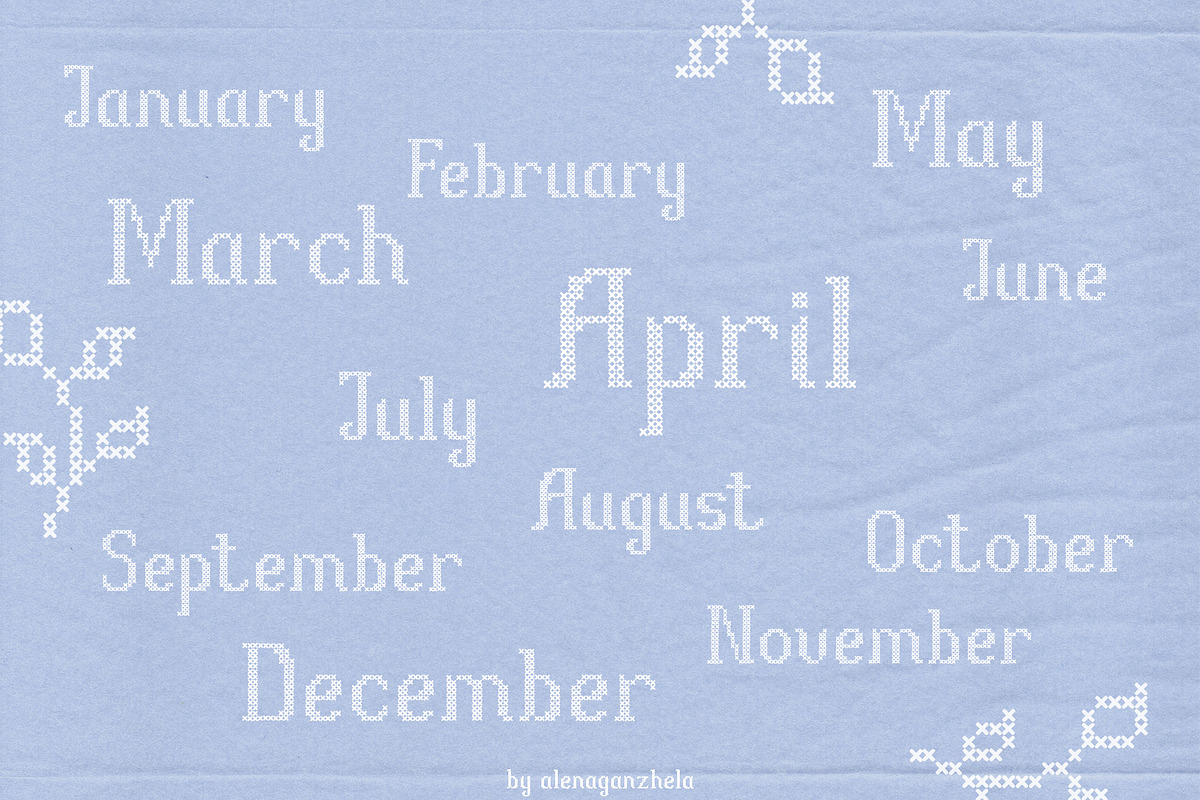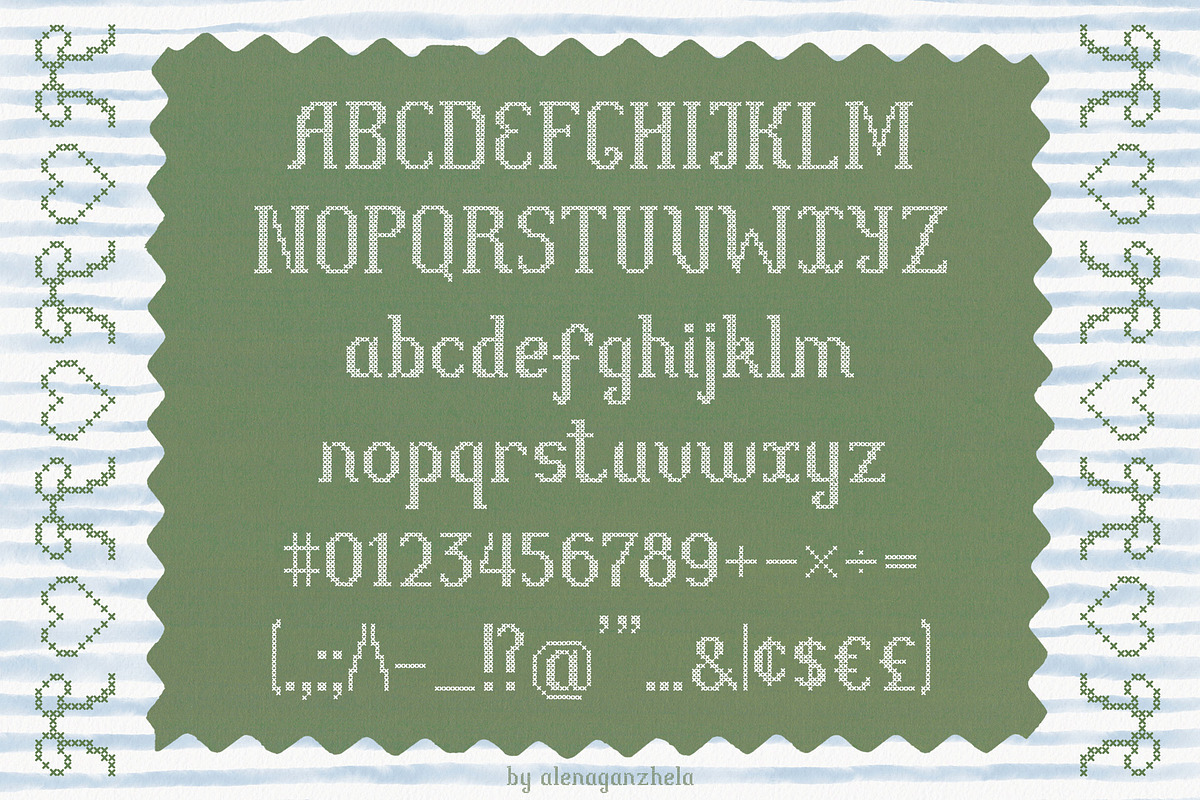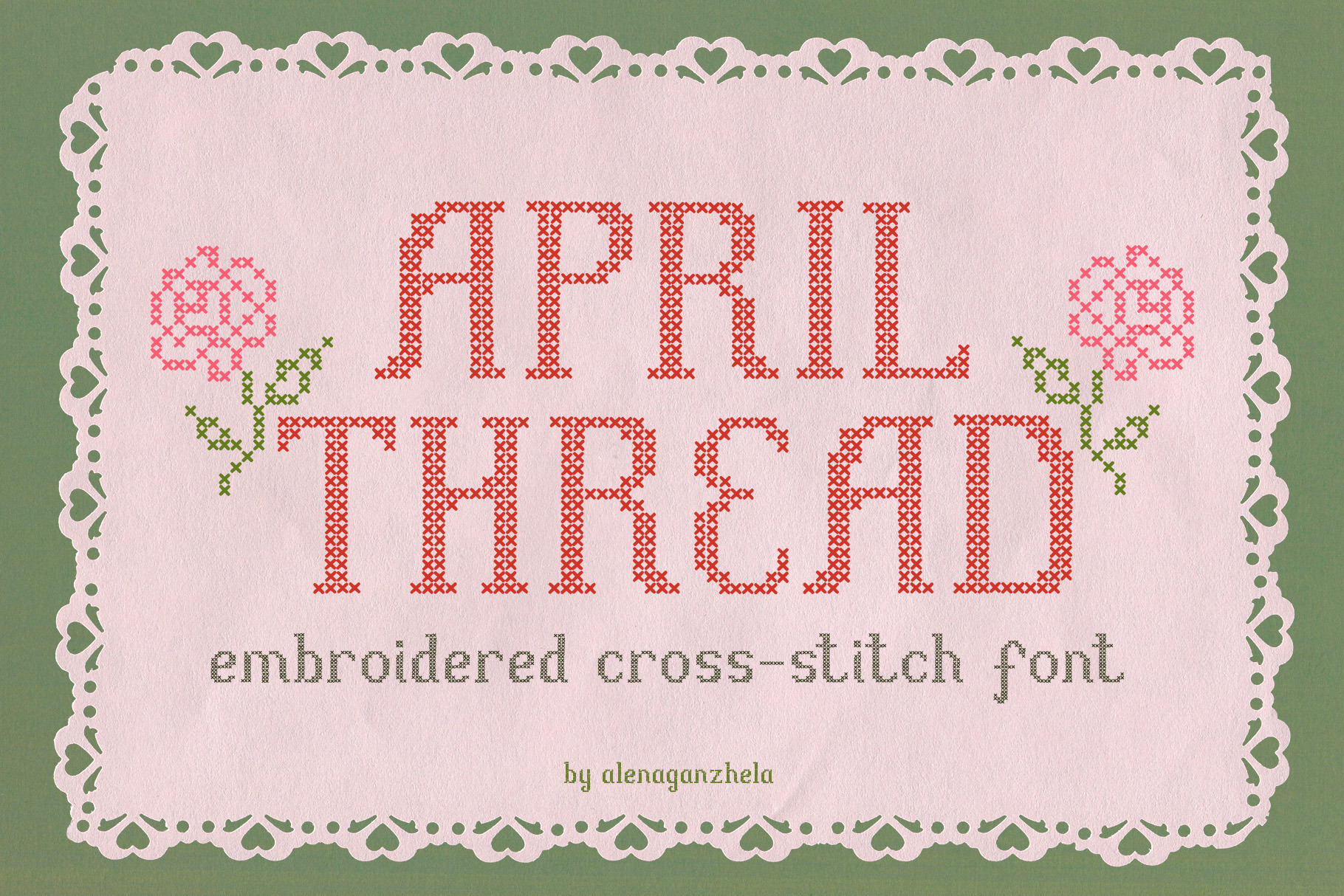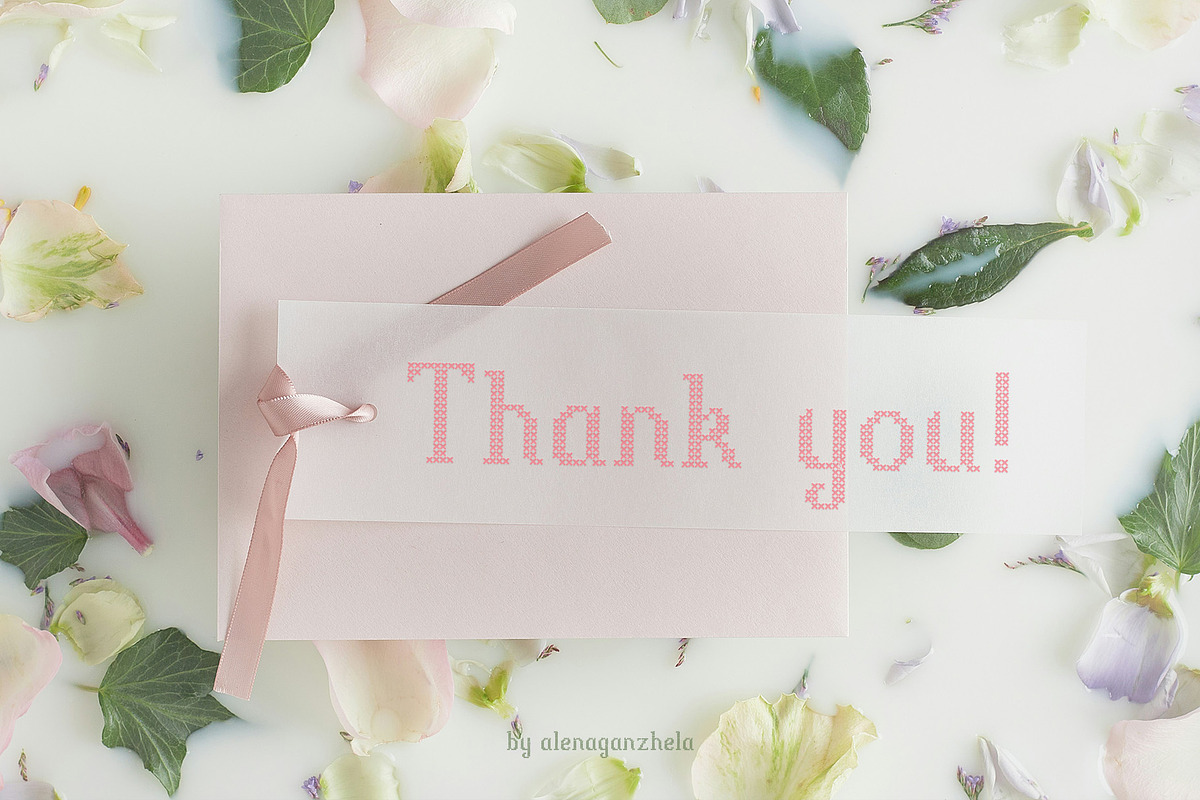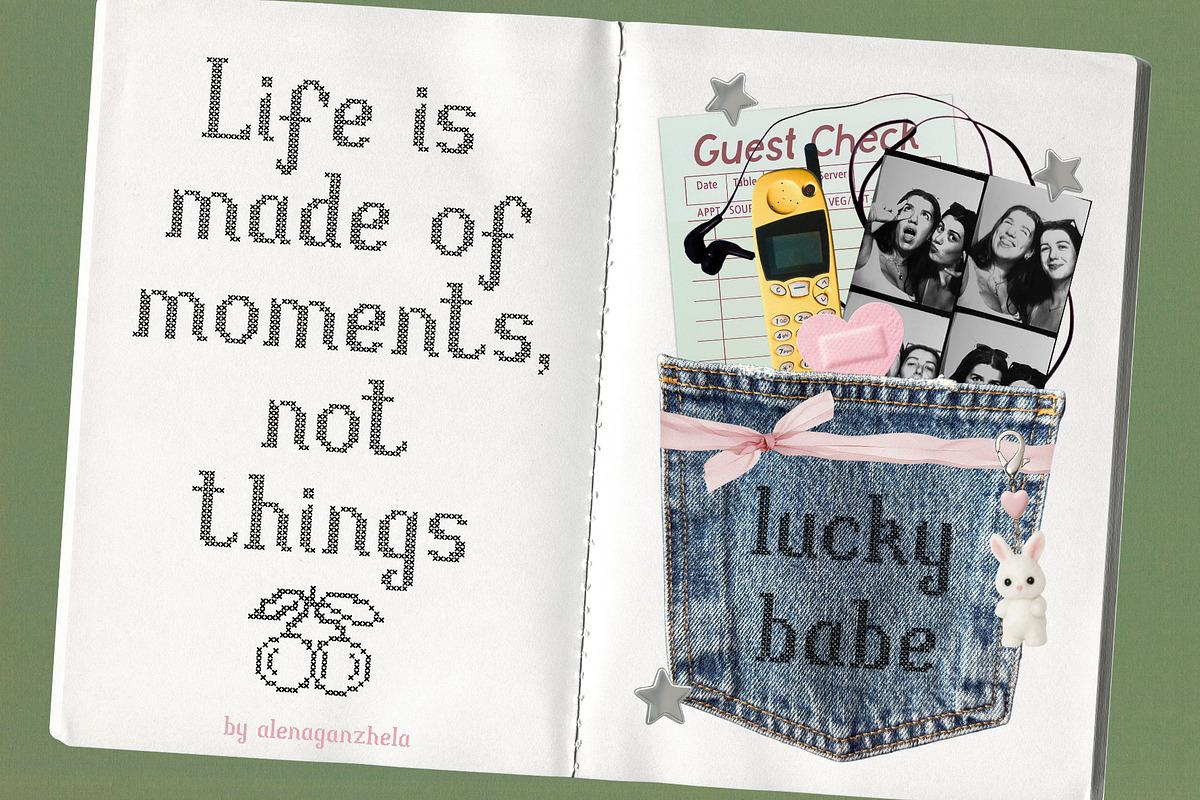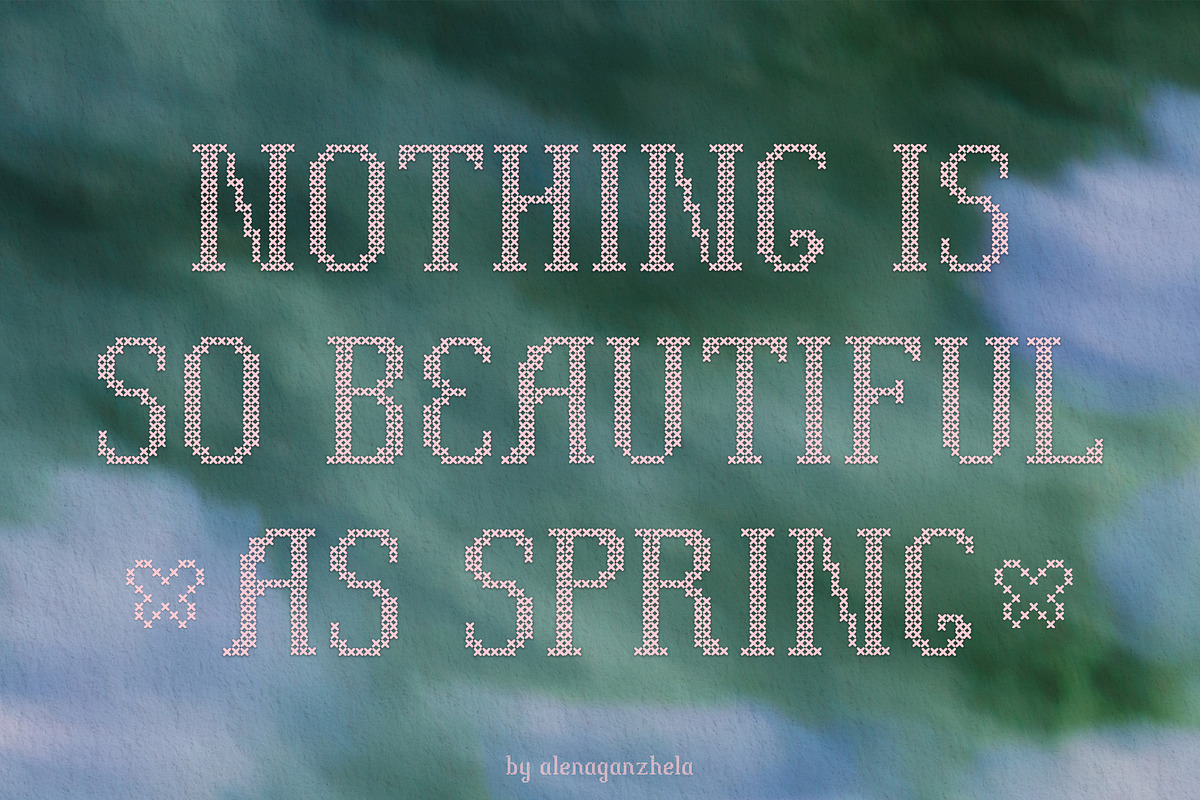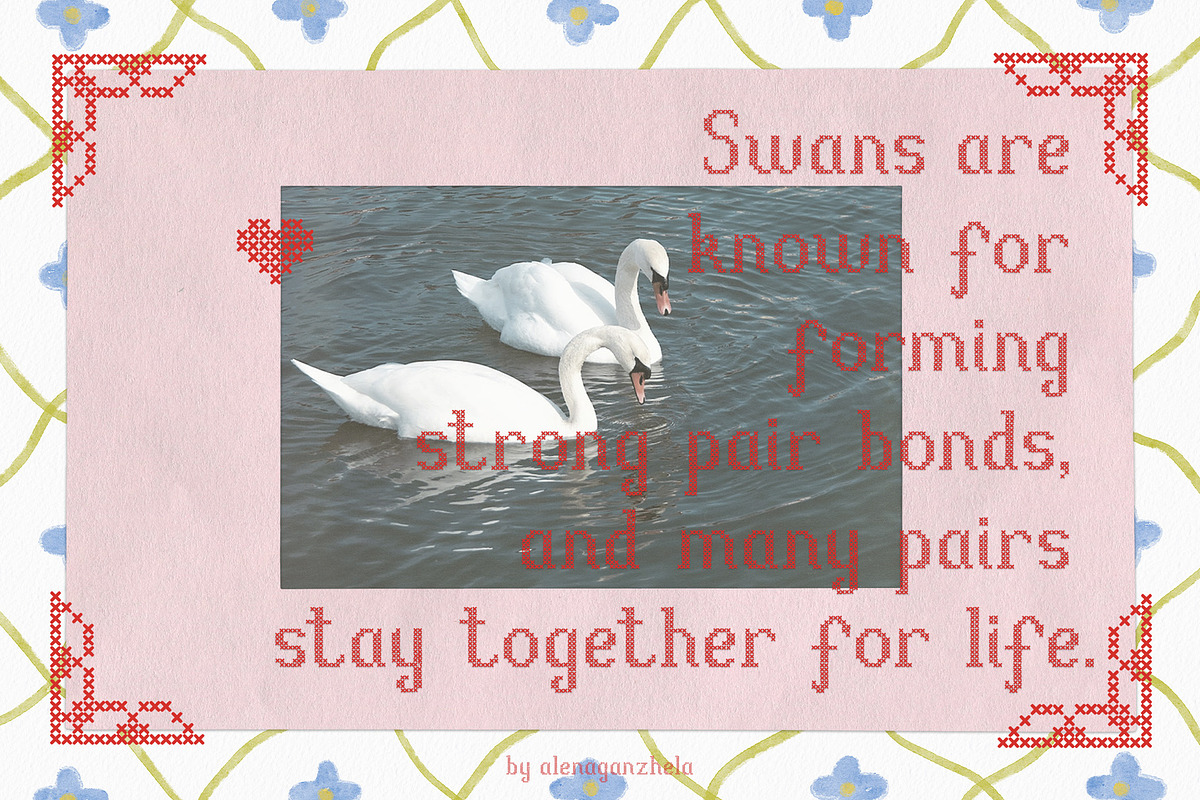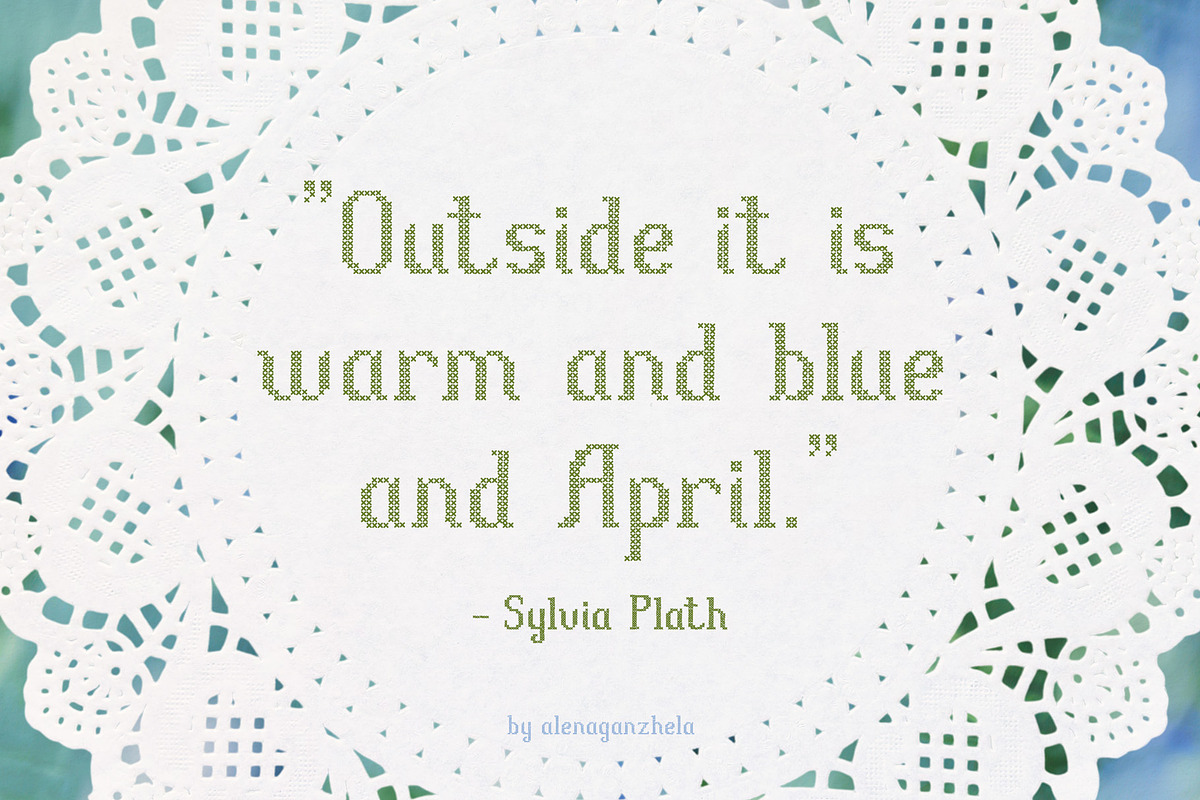
APRIL THREAD - Cross-Stitch Font
April Thread is a decorative cross-stitch font designed to bring the charm of handmade embroidery into your work. With its stitched texture, vintage sweetness, and soft nostalgic character, it is perfect for projects that need a delicate handcrafted touch.
It works beautifully for romantic branding, scrapbook layouts, journaling, greeting cards, invitations, product packaging, seasonal designs, social media graphics, and creative DIY-style projects. The font comes with uppercase and lowercase letters, numbers, punctuation, and a few bonus cross-stitch graphic extras to help you create coordinated designs with an embroidered look. Perfect for spring themes, feminine branding, cute stationery, cottage-inspired visuals, and soft retro compositions.